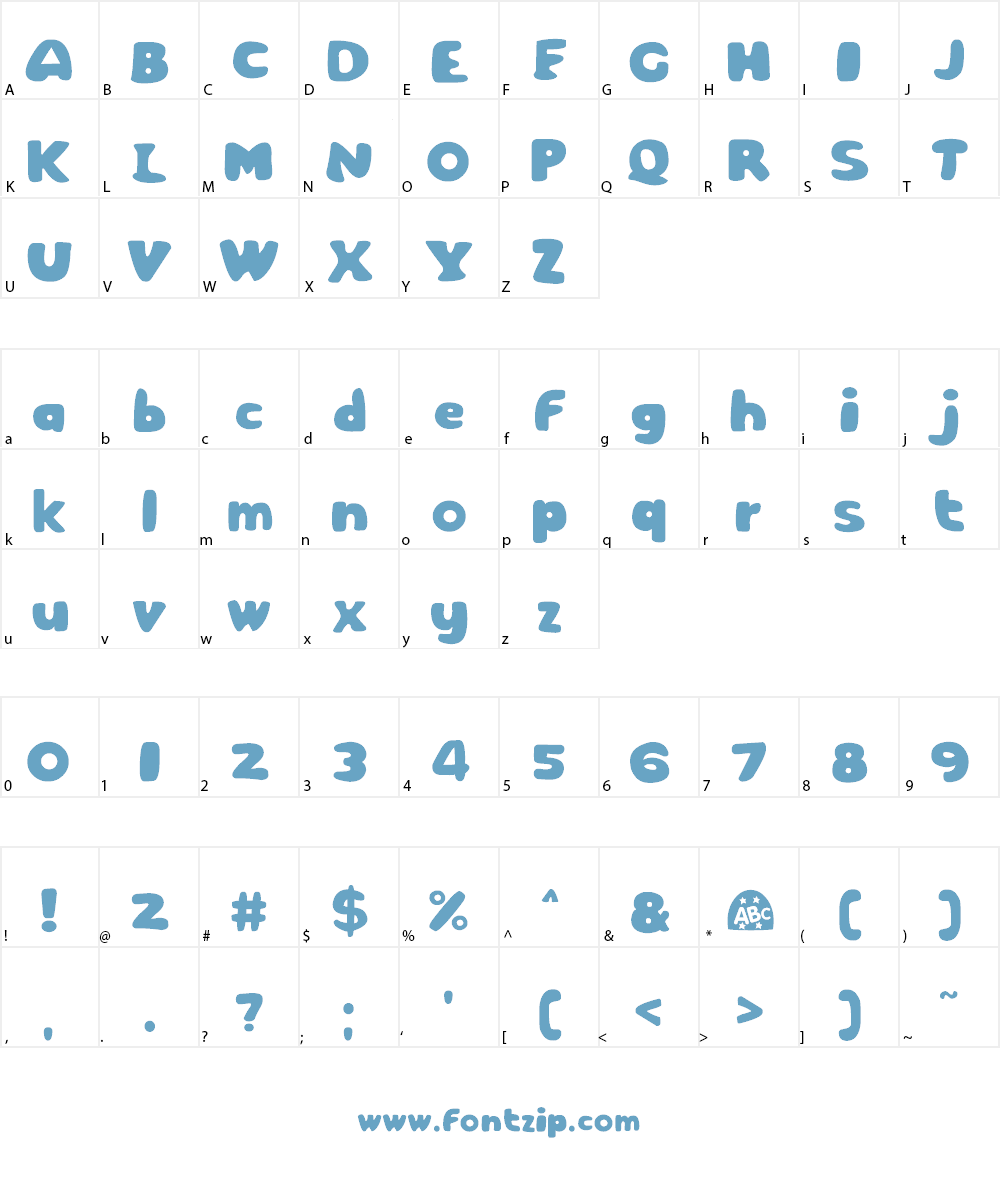
Resembling to Gemmy's weeny tiny colourful letters in their green, red or blue ABC eggs, this is an improved version of the Easter ABC Egg font. Original made two years ago.